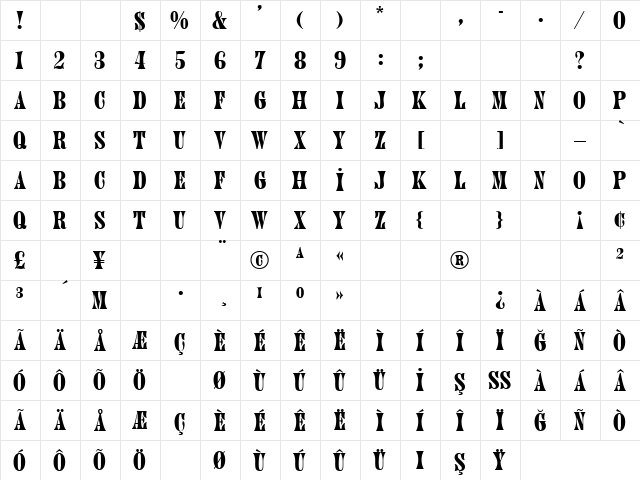
TR Jupiter Regular Font Preview
TR Jupiter Regular
Design Context for TR Jupiter Typeface
TR Jupiter is a composed and adaptable typeface that performs quietly and consistently across a wide range of design contexts.